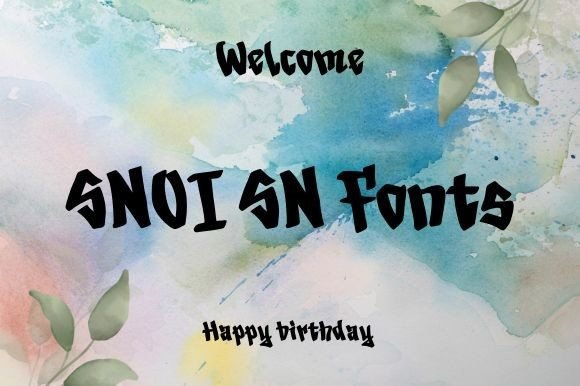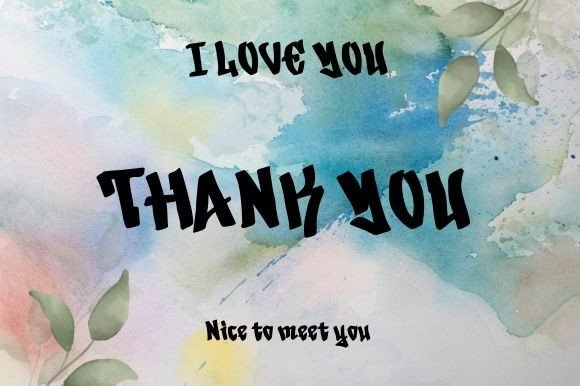
Introduction to Snoi Sn Font
Have you ever been in the middle of a creative project, frantically searching for the perfect font to bring your design to life? You scroll through countless options, but nothing seems to capture the essence of your idea. That’s where the Snoi Sn Font comes in – a fun and quirky bold handwritten font that can elevate your design to the next level.
This high-quality font is perfect for designers looking to add a touch of whimsy and personality to their work. With its transparent background, it’s easy to layer and manipulate to achieve the desired effect. And the best part? It’s available for free download, making it an invaluable resource for any creative project.
Key Features of Snoi Sn Font
- High-quality typography with unique, creative designs ideal for various projects.
- Transparent background, allowing for easy customization and versatility in design.
- Each font includes a wide range of characters, including uppercase and lowercase letters, numbers, and special symbols.
- Suitable for various creative projects, including graphics, logos, and digital art.
Honest Review: Snoi Sn Font
I recently had the opportunity to work with the Snoi Sn Font, and I must say it’s a unique addition to any designer’s toolkit. The font is free to download, which is a huge plus for those on a budget or just starting out. Its high quality and transparent background make it a great resource for creative projects.
- ✨ The font’s playful, cursive design makes it perfect for adding a touch of whimsy to a project.
- ✨ The transparent background allows for seamless layering and blending with other design elements.
- ⚠️ The font’s size and weight may not be suitable for all applications, particularly those requiring a more formal or professional tone.
- ⚠️ Some users may find the font’s cursive design to be too ornate or distracting.
Overall, I’m impressed with the Snoi Sn Font’s potential as a design resource. While it may not be suitable for all projects, it’s definitely worth adding to your collection for those creative projects that need a little extra flair.
Snoi Sn Font
Introduction to Snoi Sn Font
Snoi Sn Font is a unique and creative design resource that offers a high-quality font perfect for various projects. Its transparent background makes it versatile and easy to integrate into any design.
Tips for Getting the Most Out of Snoi Sn Font
To get the most out of Snoi Sn Font, use it in combination with other design elements to create a unique and visually appealing design. Experiment with different font sizes, colors, and styles to achieve the desired look.
Common Use Cases for Snoi Sn Font
Snoi Sn Font is perfect for creative projects that require a unique and eye-catching design
What is the transparency of the background in Snoi Sn Font?
The Snoi Sn Font features a transparent background, making it easy to use in creative projects that require a clear background. This feature is especially useful for designers working on high-quality designs that require a clean and minimalistic look.